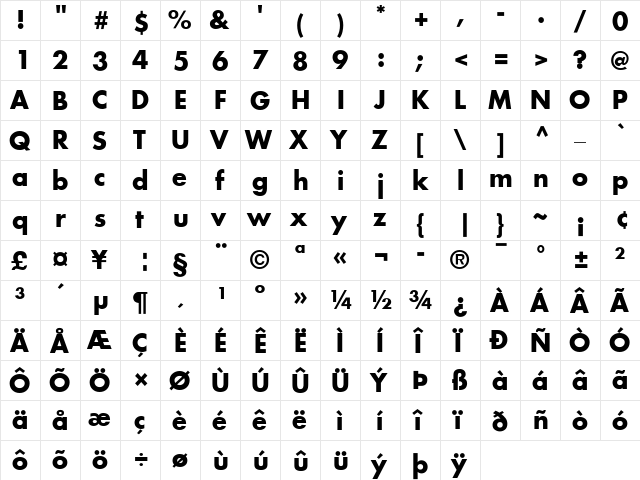
Futura Book Bold Font Preview
Futura Book Bold
Futura Book Bold Font Details
Design Context for Futura Book Typeface
Futura Book channels digital-age aesthetics through its sharp, structured letterforms — ideal for brands that want to signal innovation. Its bold stroke weight gives it real presence on the page.
Pro Tip: Use Futura Book in combination with a neutral sans for body text. Let it define the brand voice in headlines while keeping reading comfortable elsewhere.